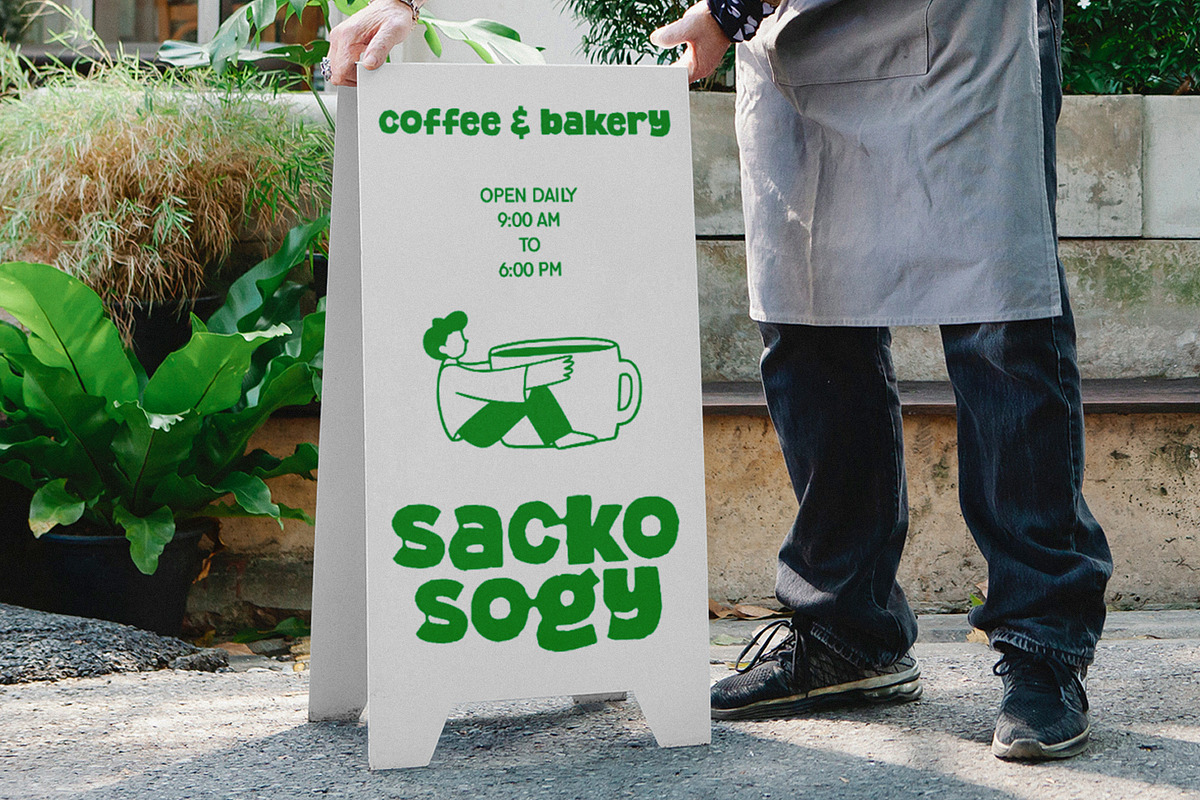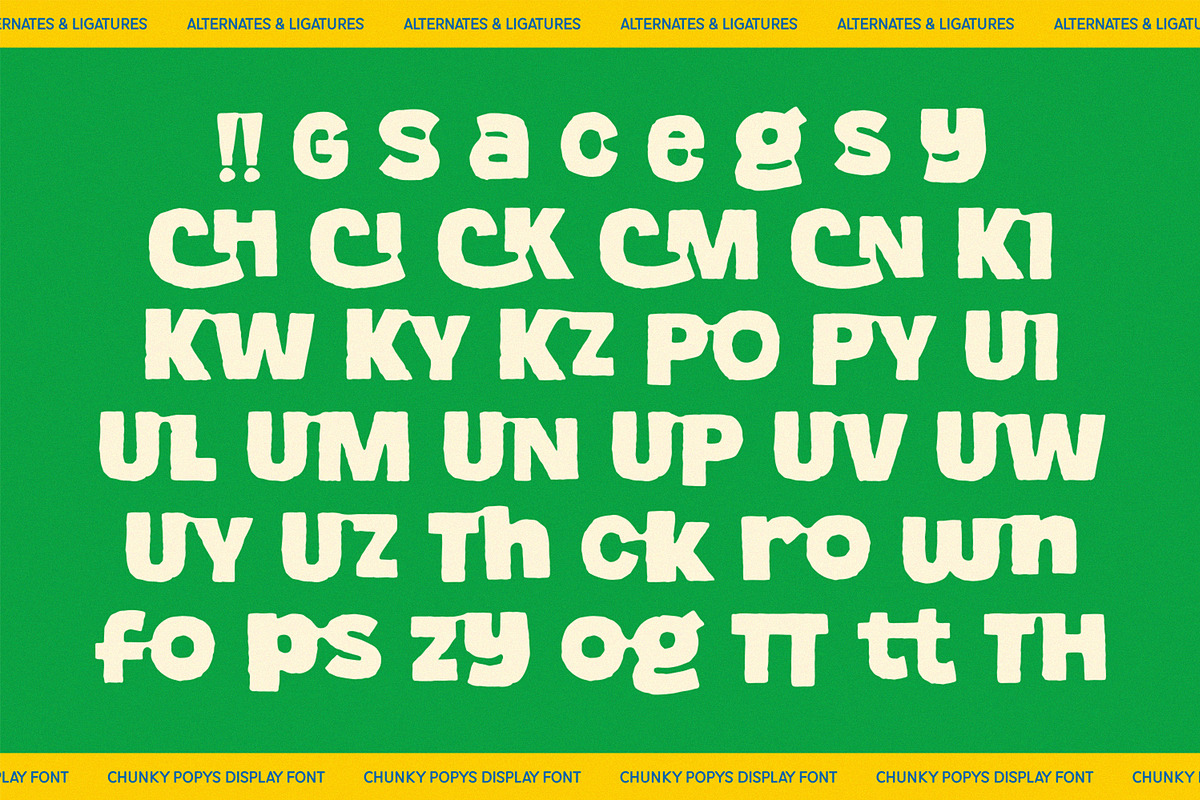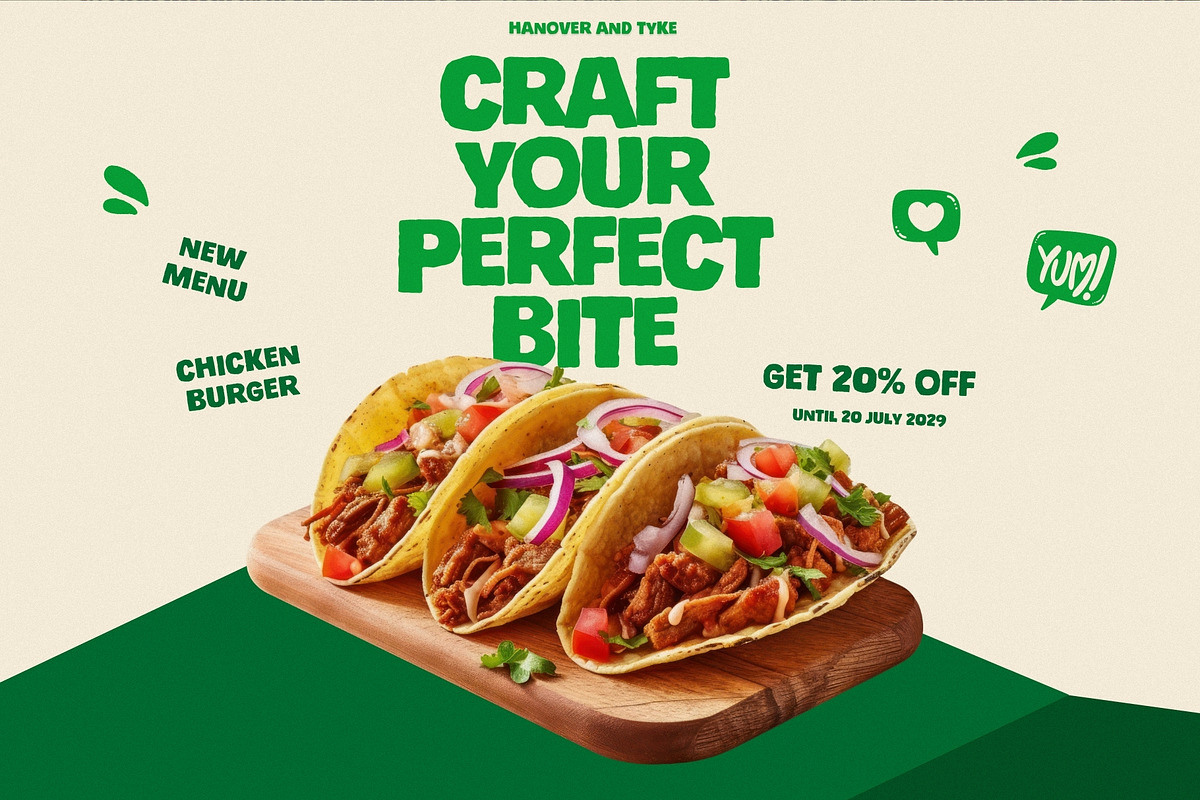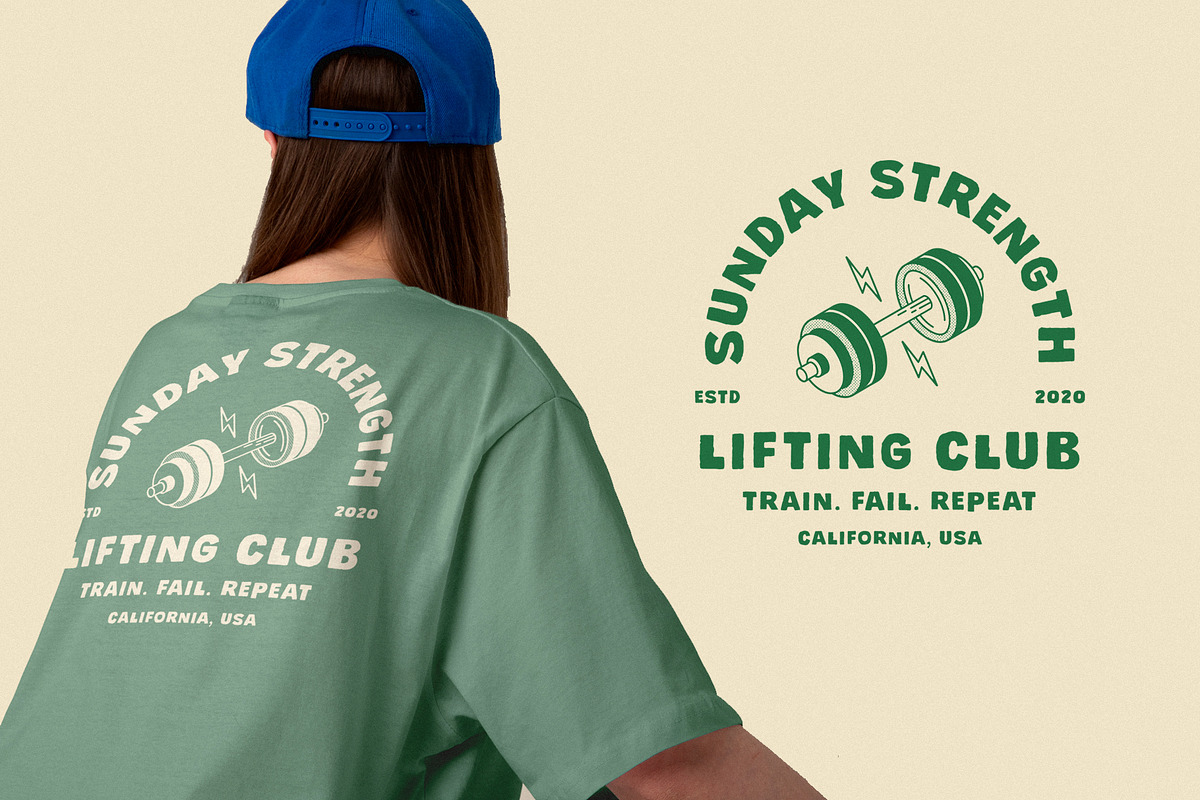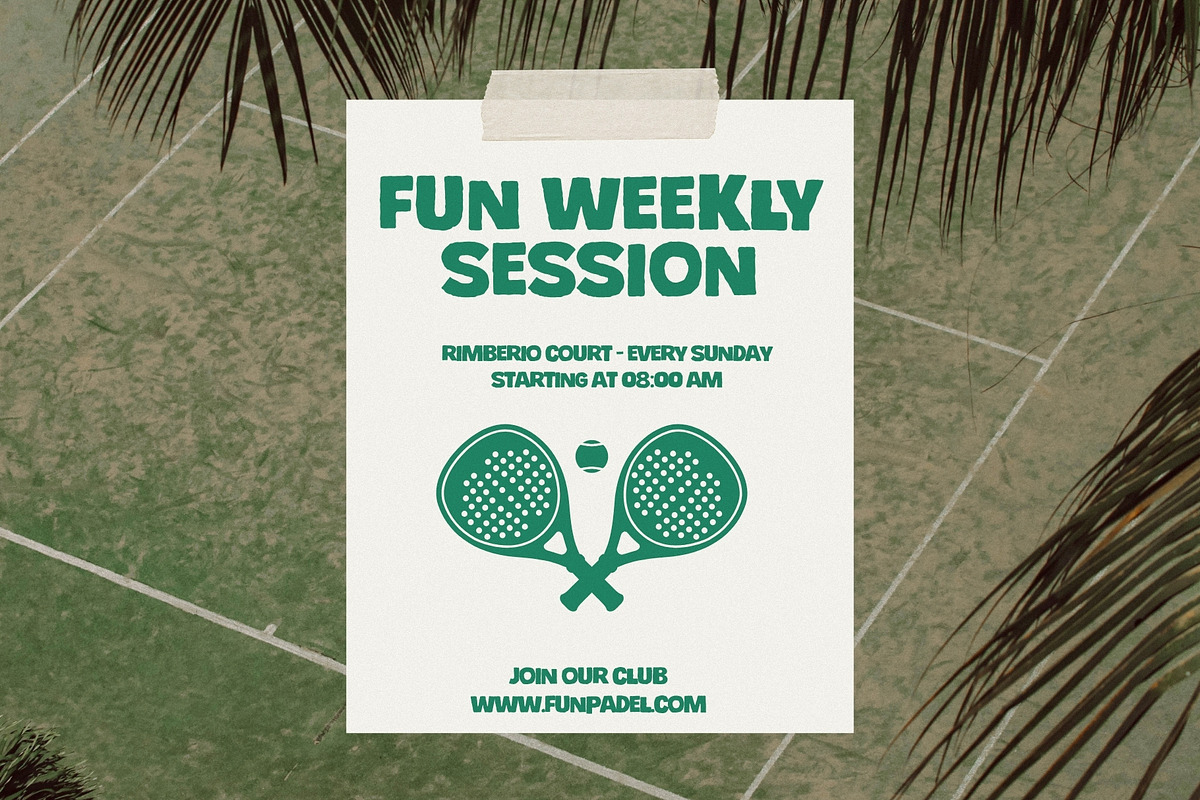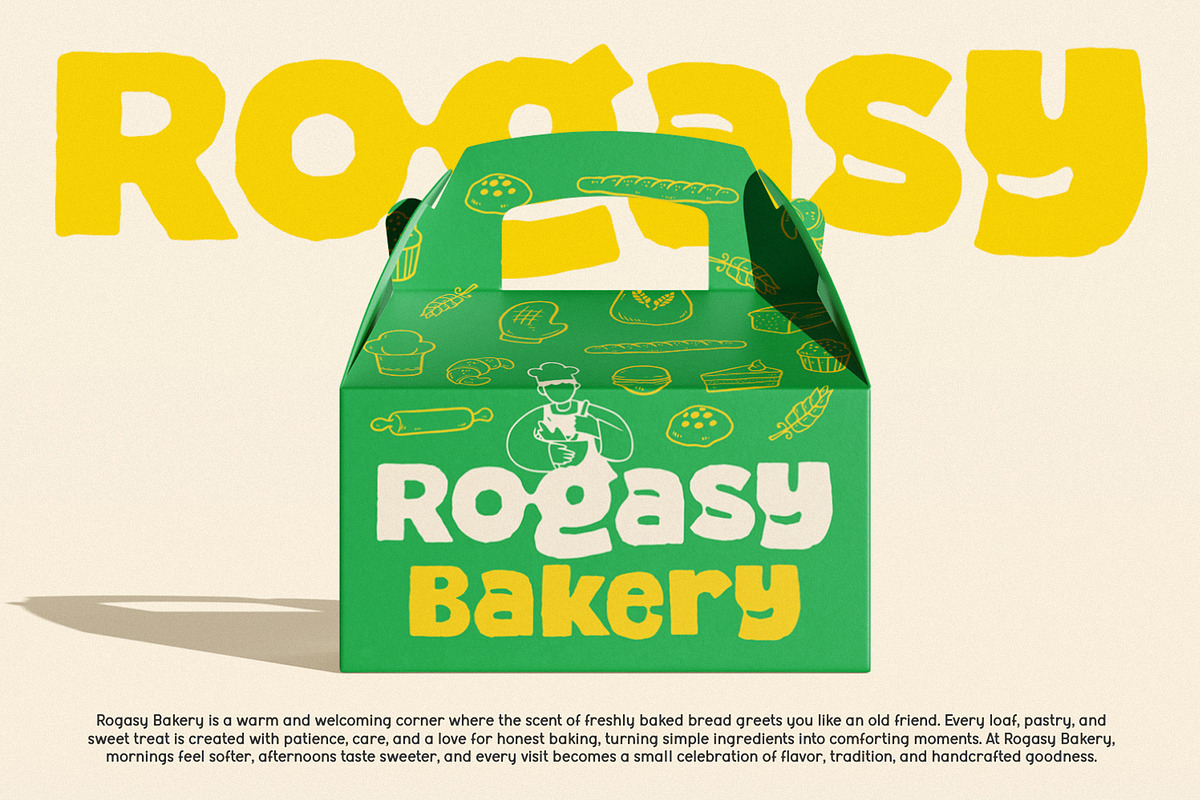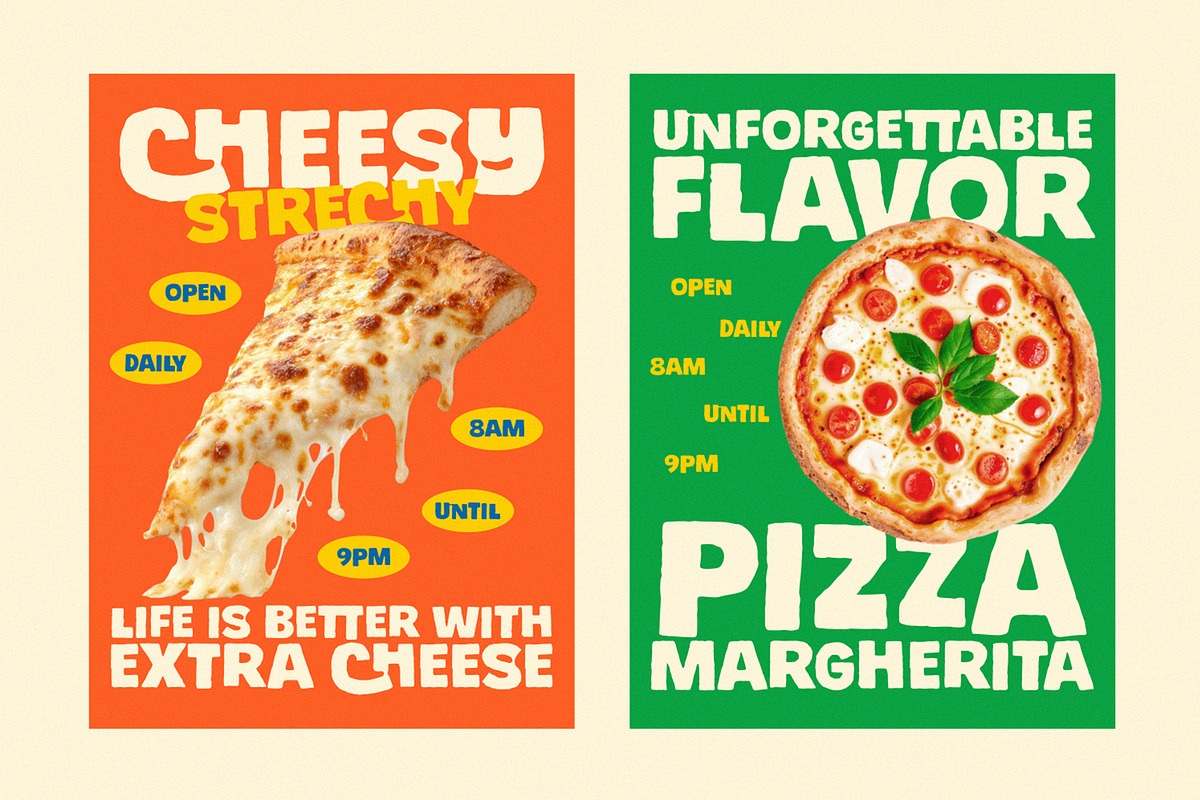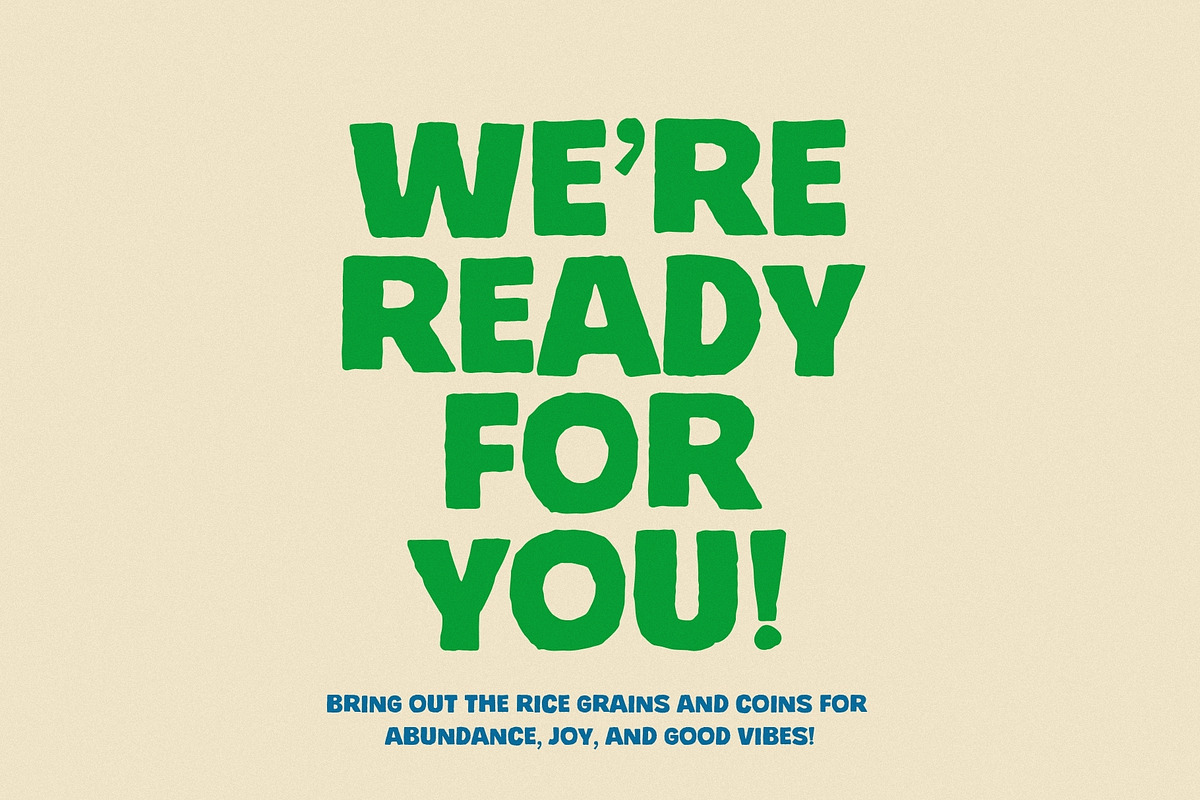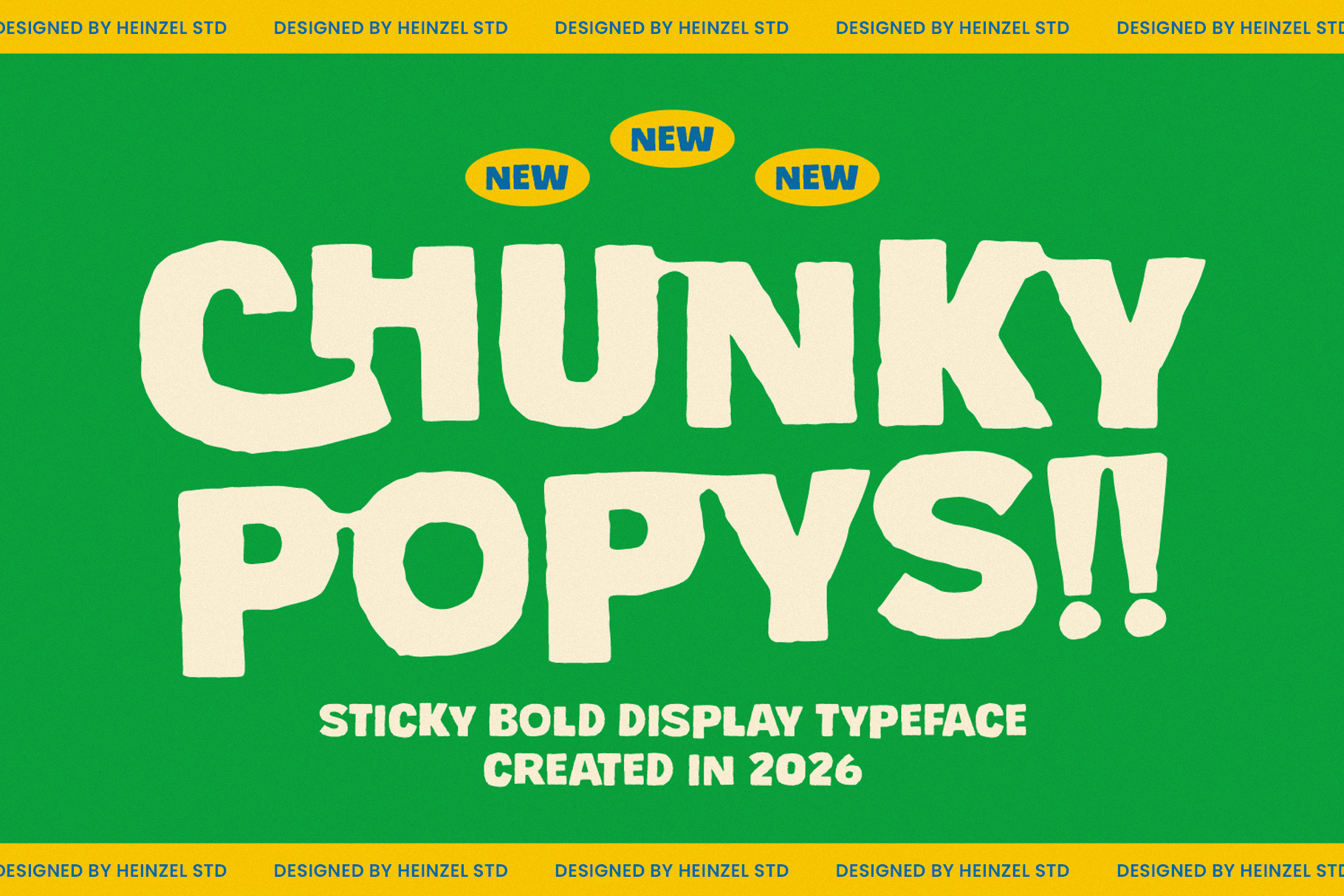
Chunky Popys Sticky Display Font
Chunky Popys is a bold, sticky display typeface designed to make a strong visual impact. With its thick, playful letterforms and soft, organic curves, this font brings a fun and energetic personality to any design. Perfect for eye-catching headlines, posters, branding, packaging, and social media graphics, Chunky Popys stands out with its unique “melty” aesthetic that feels both retro and modern. Created in 2026, this typeface is ideal for creatives looking to add a cheerful, expressive touch to their projects while maintaining high readability at large sizes.